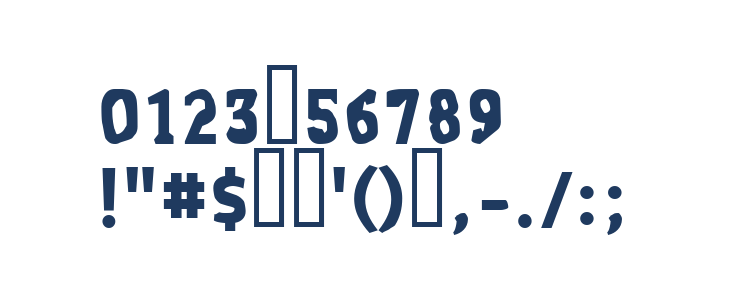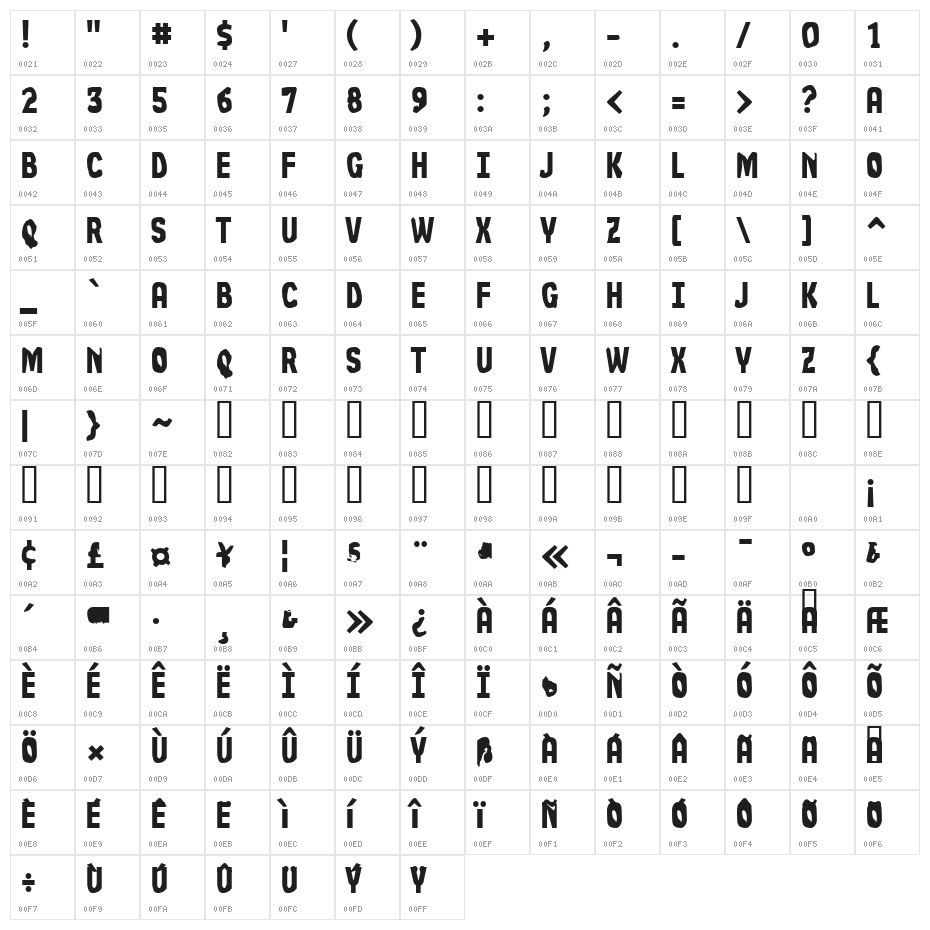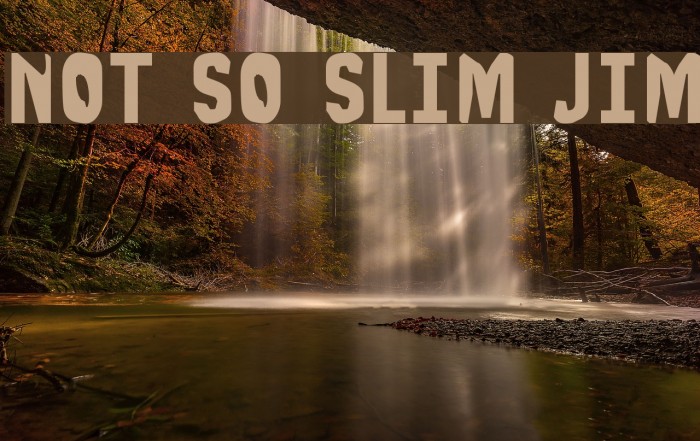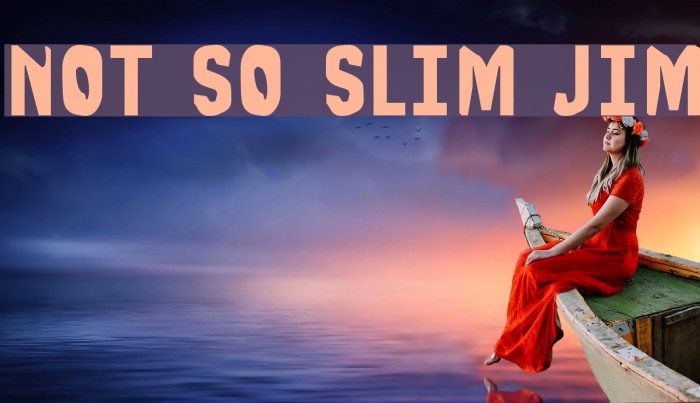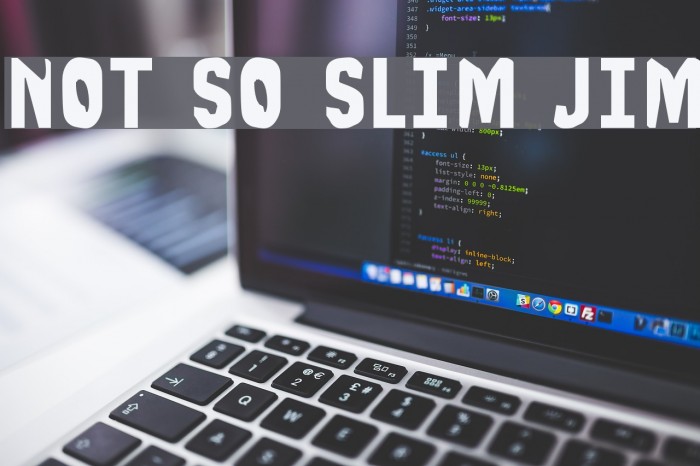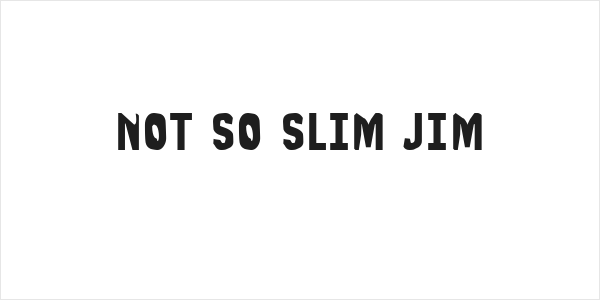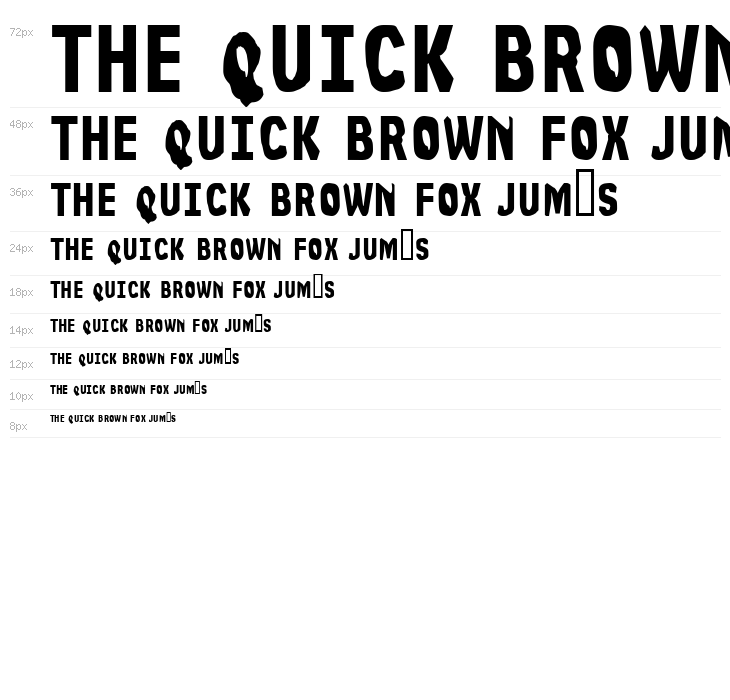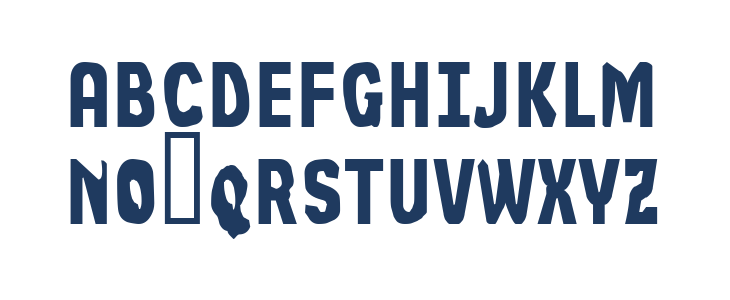
Not So Slim Jim Font
Not So Slim Jim Description
This font features a bold and robust design with a strong presence. The characters are thick and slightly condensed, giving a powerful and impactful look. The strokes are consistent in width, providing a uniform appearance across all characters. The style is reminiscent of industrial or retro themes, making it suitable for projects that require a strong visual statement. The uppercase and lowercase letters maintain a cohesive design, while the numerals and special characters complement the overall aesthetic. This font is ideal for creating eye-catching headlines, posters, and branding materials that demand attention.
| Overall Style | Retro, Industrial |
| Use Case | Headlines, Posters, Branding |
| Proposed Projects | Ideal for posters, branding, headlines, and any design requiring a strong visual impact. |